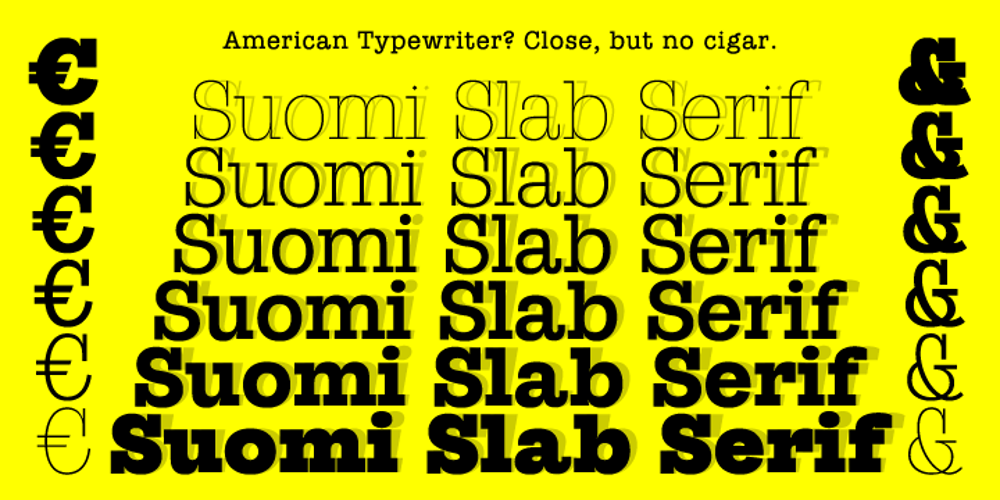
Suomi Slab Serif Font Family was designed by Tomi Haaparanta and published by Suomi. Suomi Slab Serif contains 12 styles and family package options. All typewriter types are rounded and especially American Typewriter has an almost too-slick appearance. Suomi Slab Serif has the glyph shapes similar to typewriting, but the serifs, terminals and connections are crisp and sharp.